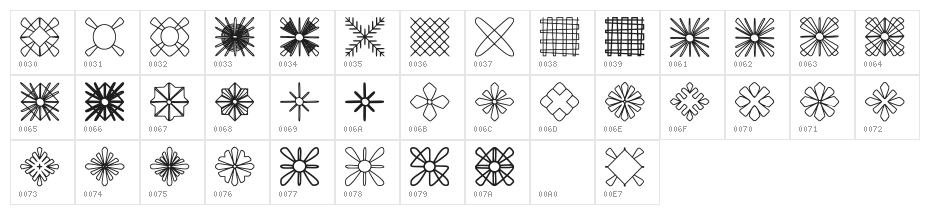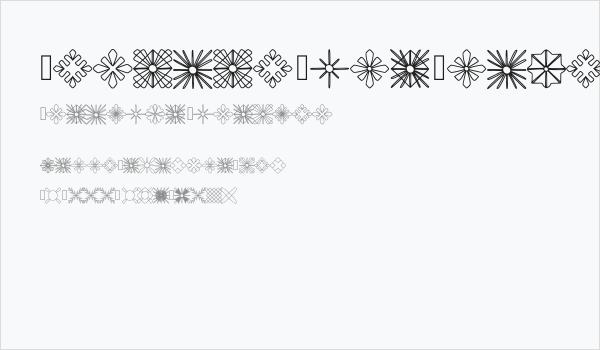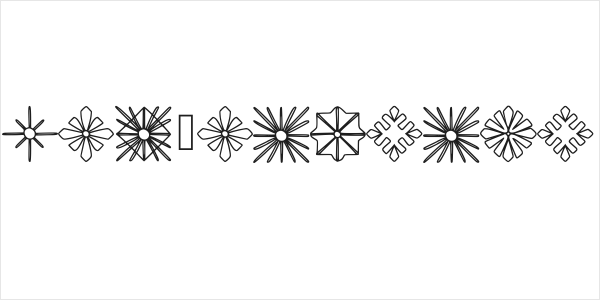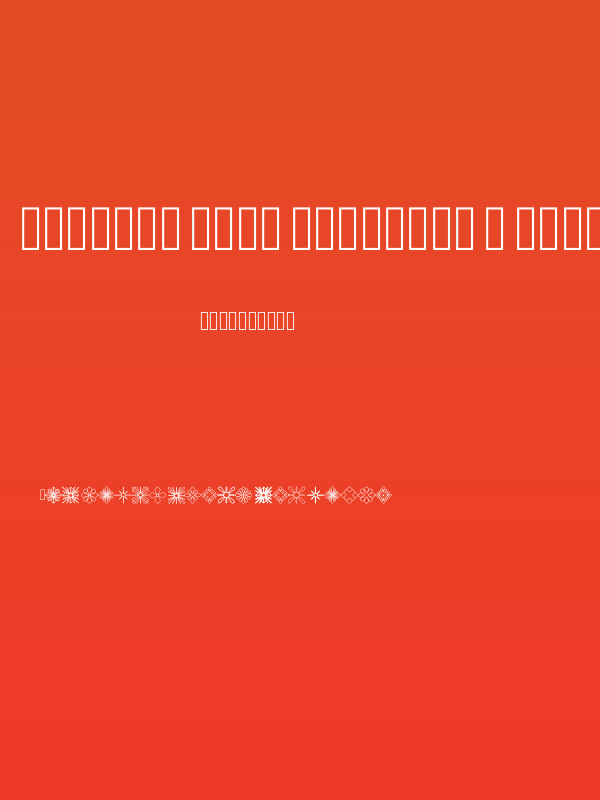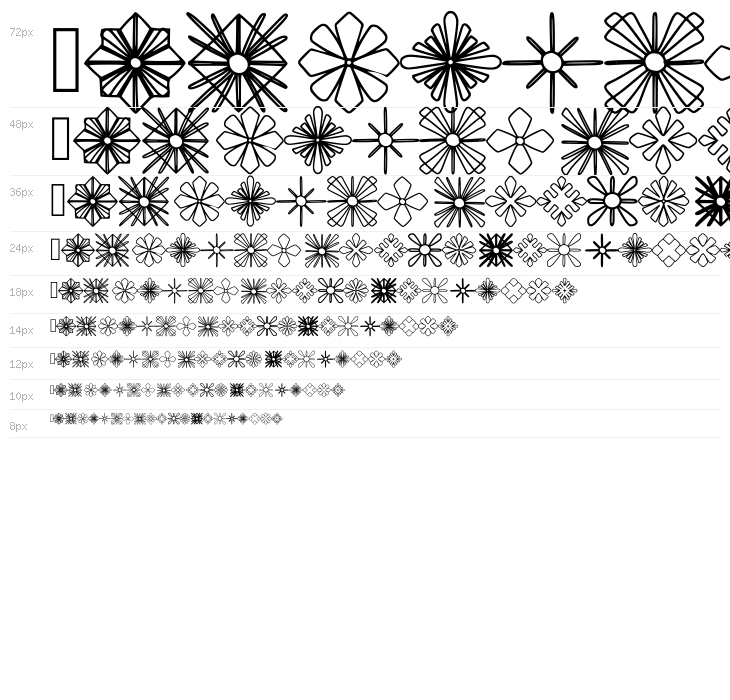
Bordado File Alagoano L Regular Font
Bordado File Alagoano L Regular Description
A decorative display font inspired by traditional embroidery patterns, featuring intricate geometric and floral motifs in place of standard alphanumeric characters. The glyphs are highly ornamental, with each character resembling a unique stitched or woven design.
| Overall Style | Decorative, Folk, Artistic |
| Use Case | Logos, Headlines, Posters, Decorative elements |
| Proposed Projects | Textile branding, craft packaging, folk art posters, decorative headings, cultural event invitations. |